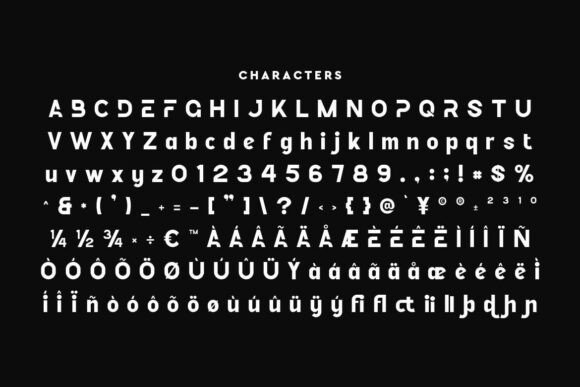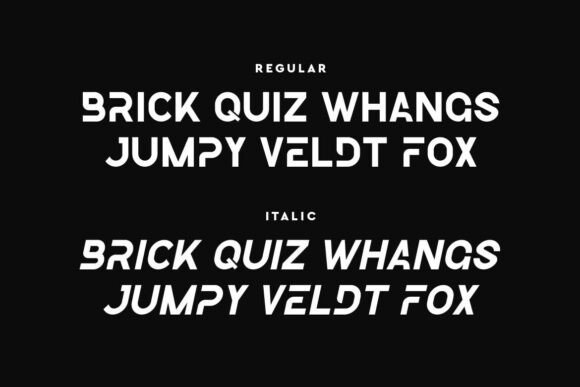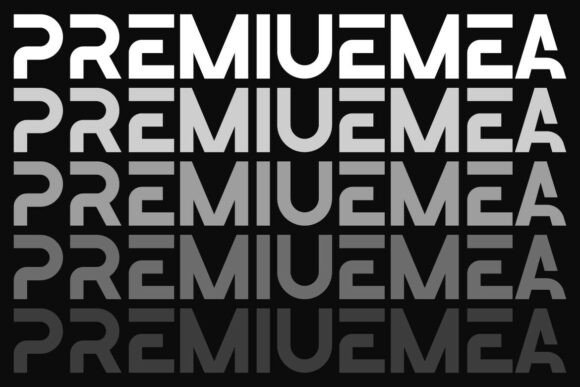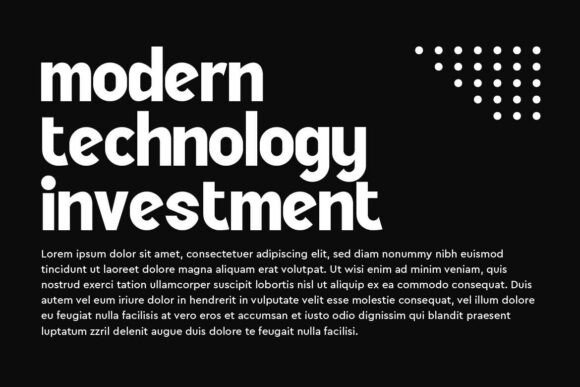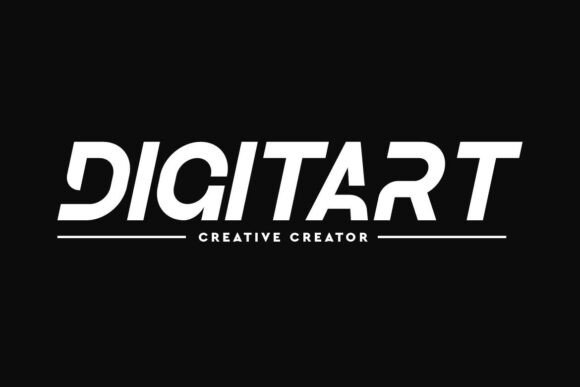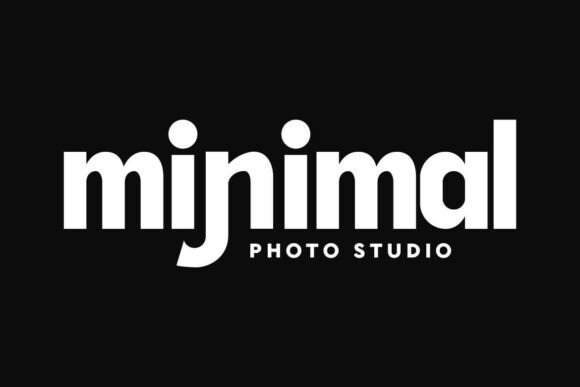
Introduction to Damiant Font
Imagine you’re working on a creative project, pouring your heart and soul into a design that’s supposed to represent your brand’s identity. You’ve got the perfect concept, but the font is just not fitting the bill. You scroll through countless design resources, trying to find the perfect match. And then, you stumble upon it – the sleek, modern, and sophisticated Damiant Font.
As a designer, you know the importance of choosing the right font for your project. A high-quality font can make all the difference in conveying your message and setting the tone for your brand’s identity. With its clean lines, balanced proportions, and subtle geometric influence, the Damiant Font is the perfect choice for any creative project.
Key Features of Damiant Font
- Unique, modern design with a transparent background, allowing for versatility in design applications
- Perfect for use in graphic design, digital art, and other creative pursuits, offering a professional and sleek aesthetic
Honest Review: Damiant Font
As a designer, I’m always on the lookout for high-quality design resources that can elevate my creative project. Recently, I stumbled upon the Damiant Font, and I’m excited to share my honest review.
What works well: ✨ The Damiant Font is a stunning addition to any design project. Its sleek, modern design makes it perfect for headings and titles. The font is highly legible, even at smaller sizes, making it ideal for a wide range of applications.
What works well: ✨ The Damiant Font is also incredibly versatile. It comes in a variety of weights, from light to bold, making it easy to find the perfect fit for your design. Plus, it’s available for free download, which is a huge bonus.
However, there are a few limitations to consider: ⚠️ The Damiant Font doesn’t come with a transparent background, which can be a bit limiting for designers who want to create custom backgrounds or graphics.
Overall, I’m impressed with the Damiant Font. It’s a high-quality design resource that’s perfect for designers looking to add some style to their creative project. While it may have a few limitations, its versatility and modern design make it a great addition to any design library.
- Highly legible, even at smaller sizes
- Available in a variety of weights
- No transparent background
Tips for Getting the Most Out of Damiant Font
For the best results, use Damiant Font in conjunction with a high-quality image or background. This will help to create a visually appealing and professional design. Additionally, experiment with different font sizes and styles to add depth and interest to your creative project.
The Damiant Font is ideal for use in creative projects such as logos, business cards, and brochures. Its high-quality design and transparent background make it perfect for use in digital design and print materials.